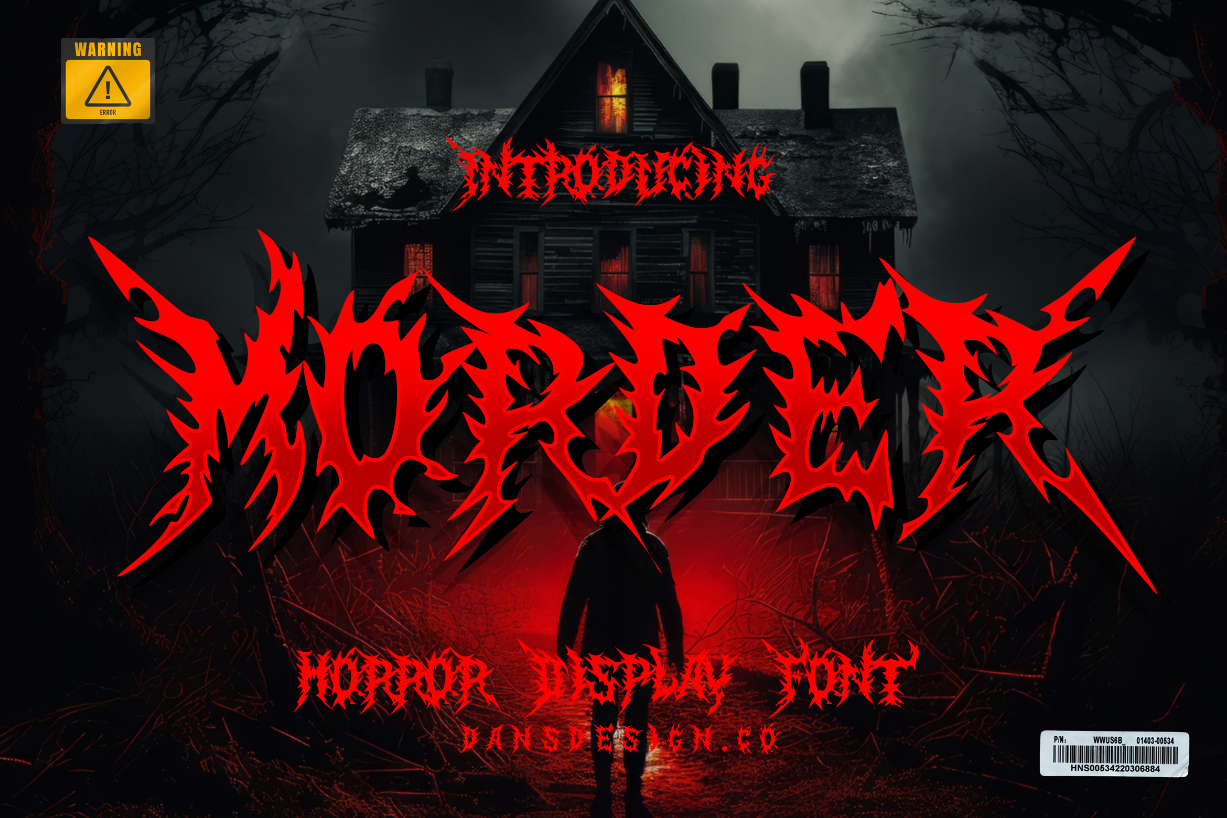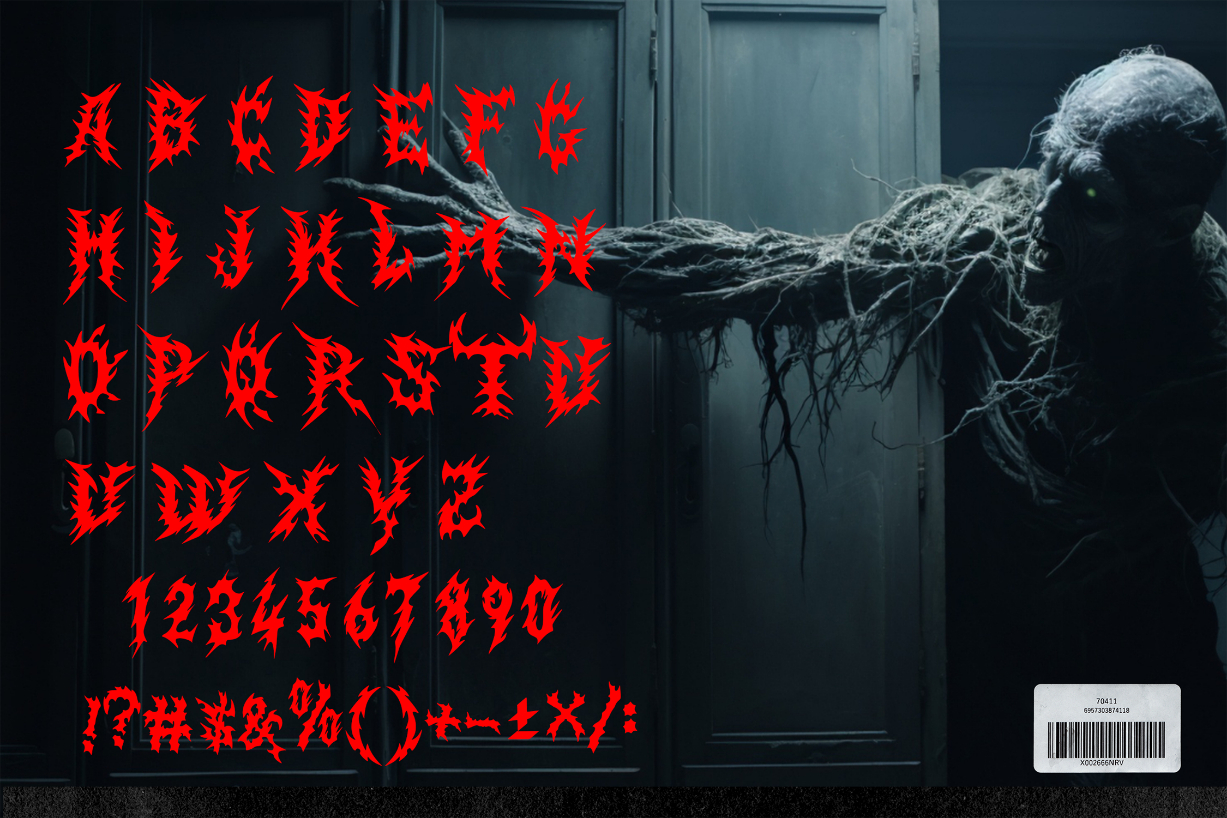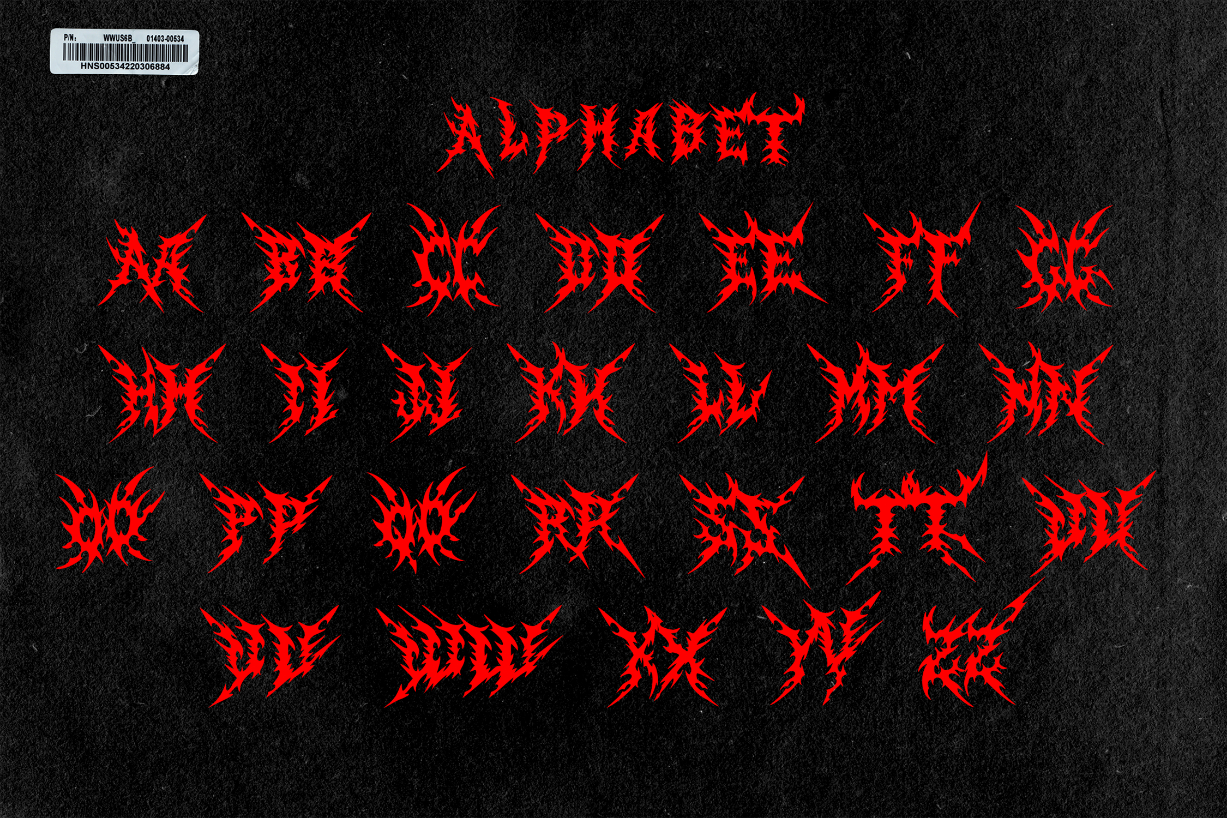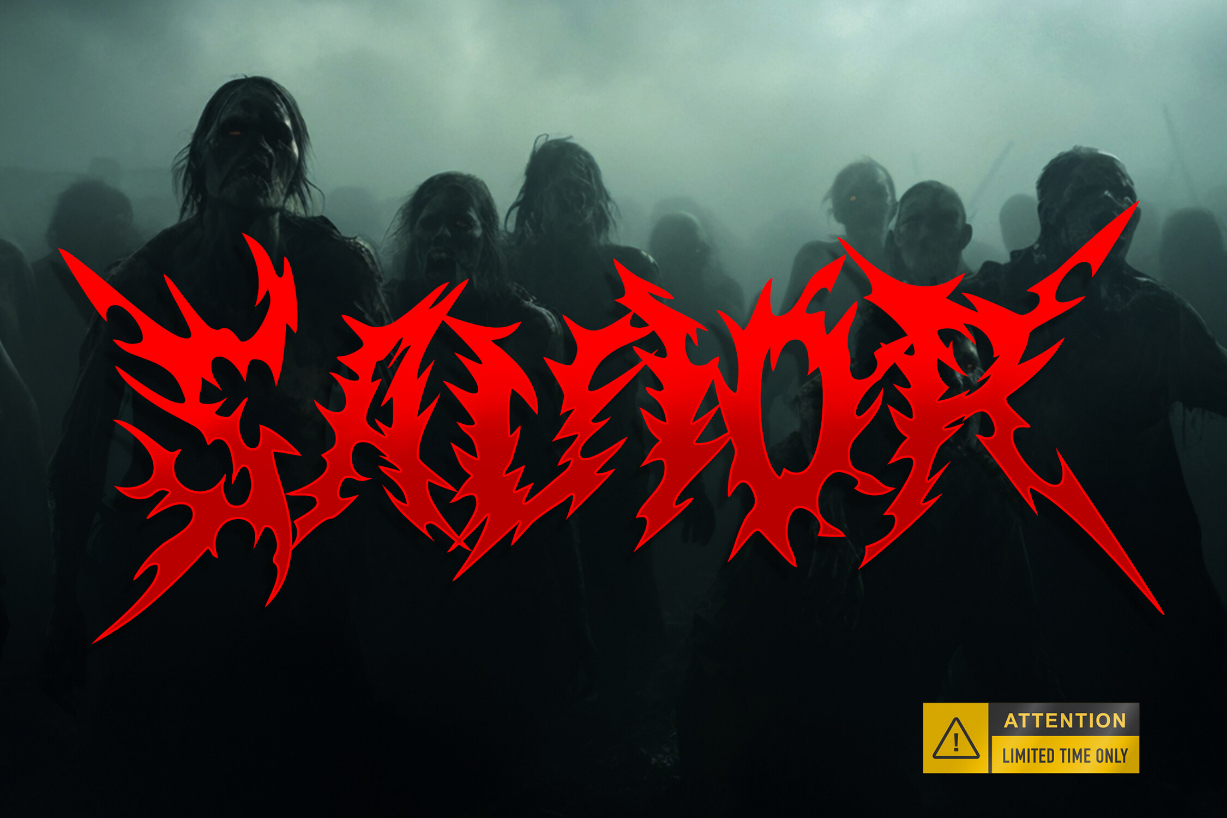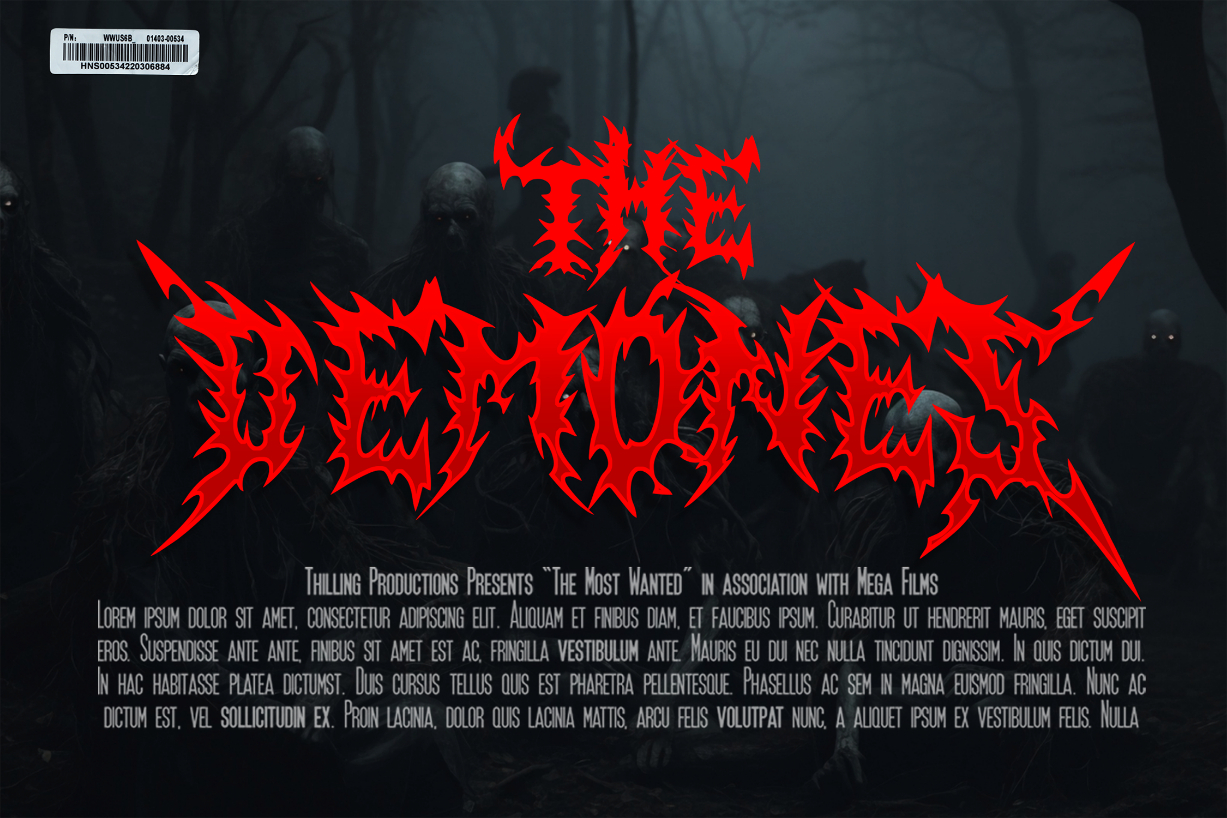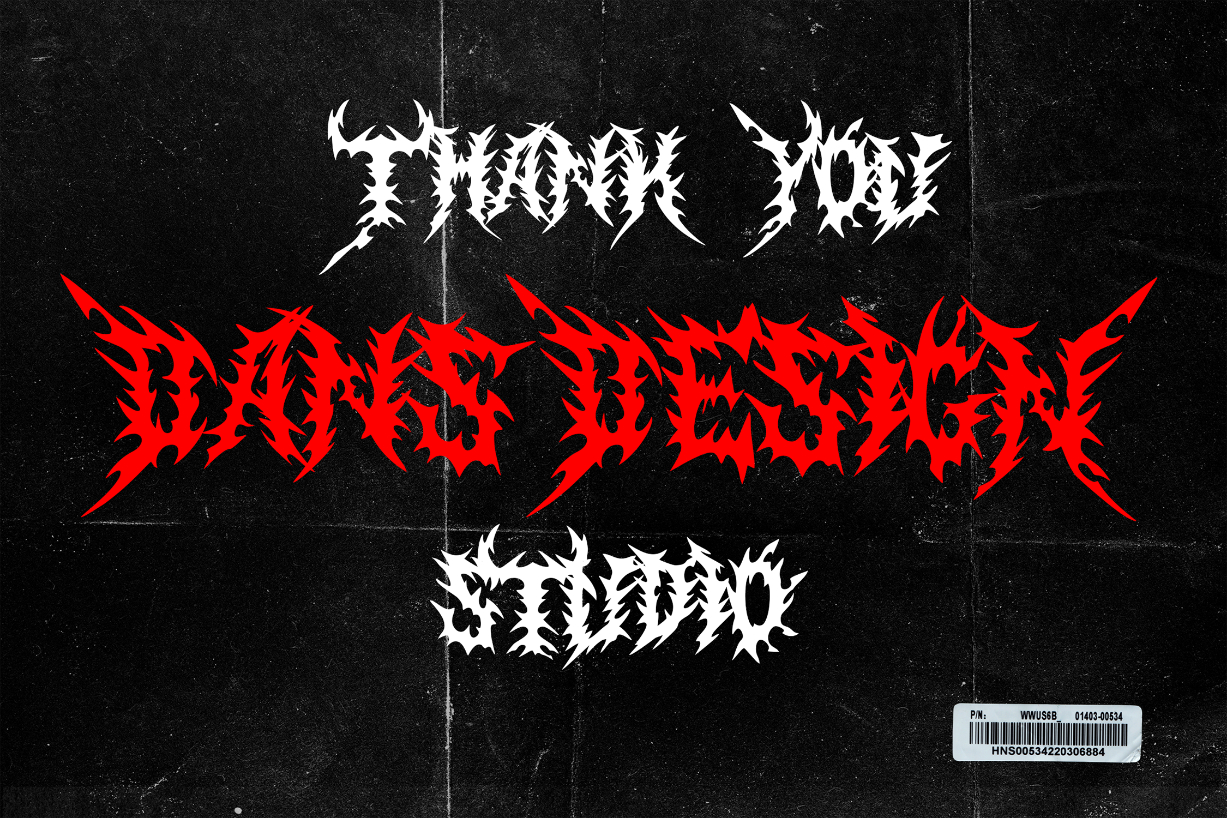
Morder Font
About Morder Font
MordeR Metal Horror Font
MordeR Metal Horror Font is a distinct, highly detailed, and chic Blackletter font.
It would make a great choice for exquisite retro-urban designs, tattoo business branding, logos, vintage designs, movies, posters, apparel, illustration, and more.